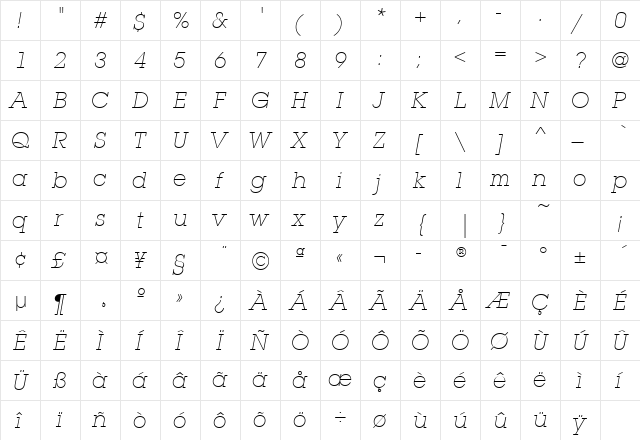
LubalinGraphXLitITCTT Oblique
Design Context for LubalinGraphXLitITCTT Typeface
LubalinGraphXLitITCTT is a composed and adaptable typeface that performs quietly and consistently across a wide range of design contexts. The dynamic lean of this cut emphasises speed and emphasis in any layout.